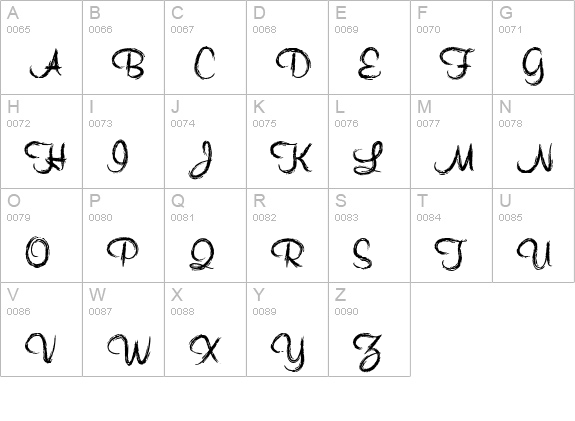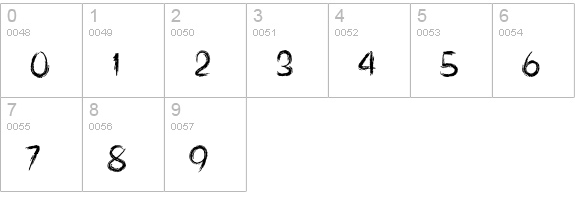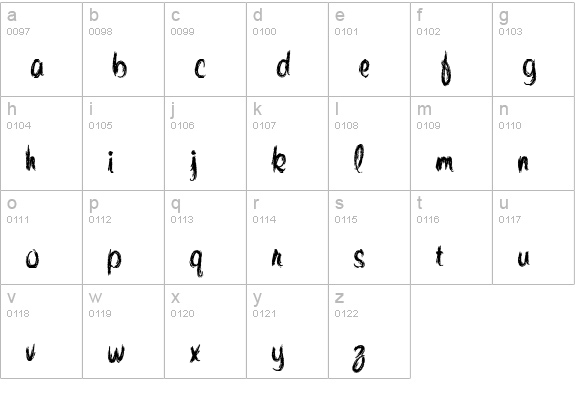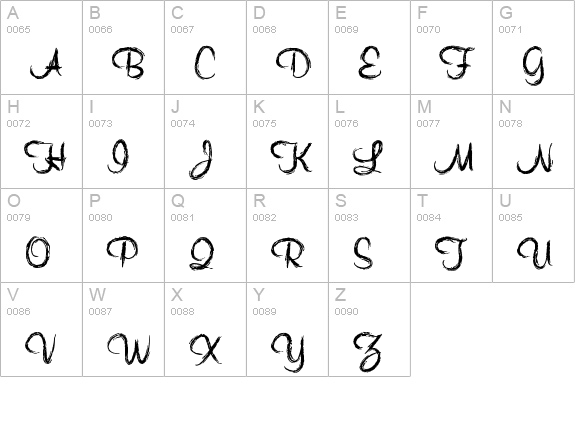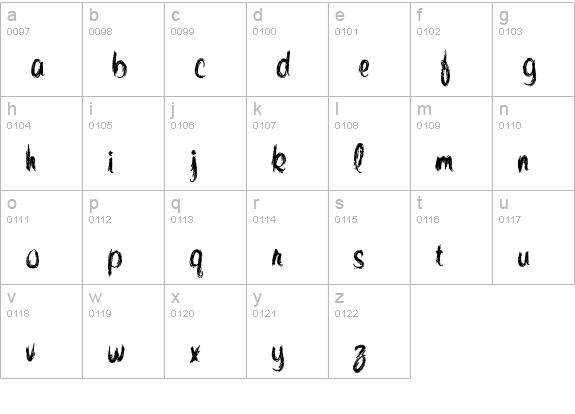
Quince Font Details
Quince font is a stylish and modern typeface that exudes elegance and sophistication. With its sleek lines and unique curves, Quince font is perfect for a wide range of design projects, from branding to editorial design. The font is versatile and can be used for both display and text purposes, making it a valuable addition to any designer's toolkit. What's even better is that Quince font is available for free download at FontsMarket.com. This means that you can easily access this beautiful font and use it in your projects without any cost. Whether you're working on a personal or commercial project, Quince font is a fantastic choice that will elevate your designs and make them stand out. Download Quince font today and unleash your creativity with this stunning typeface.